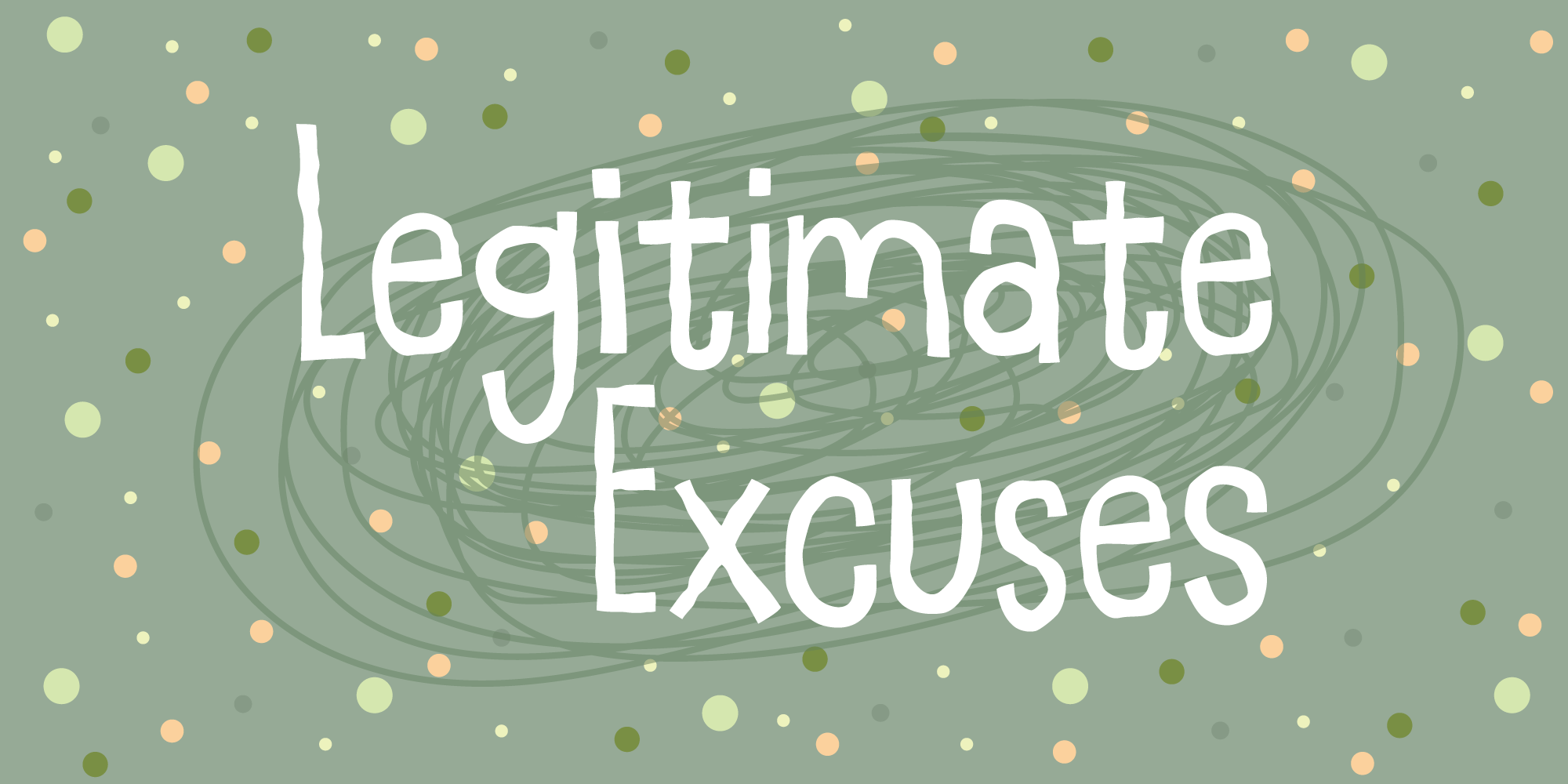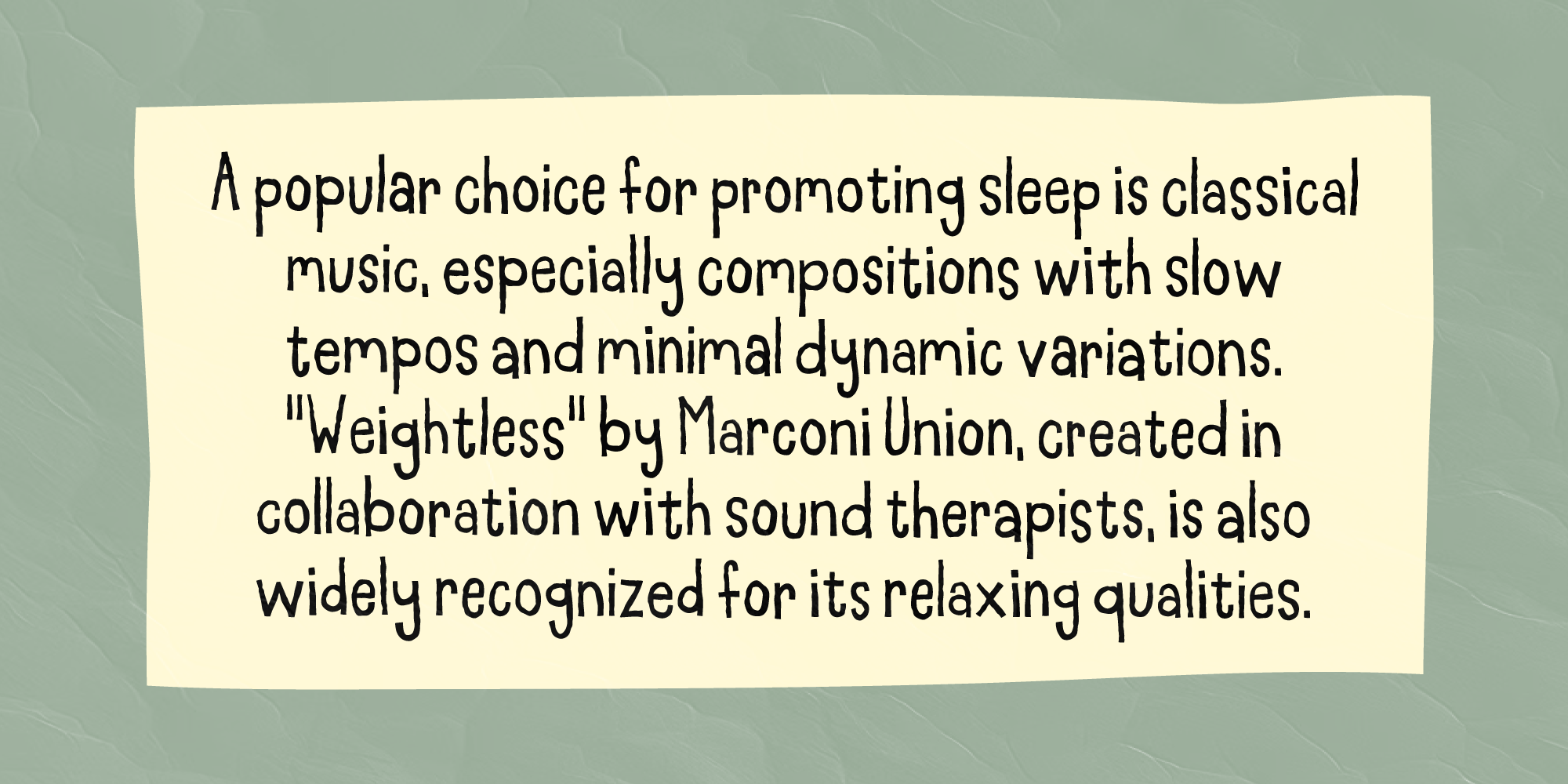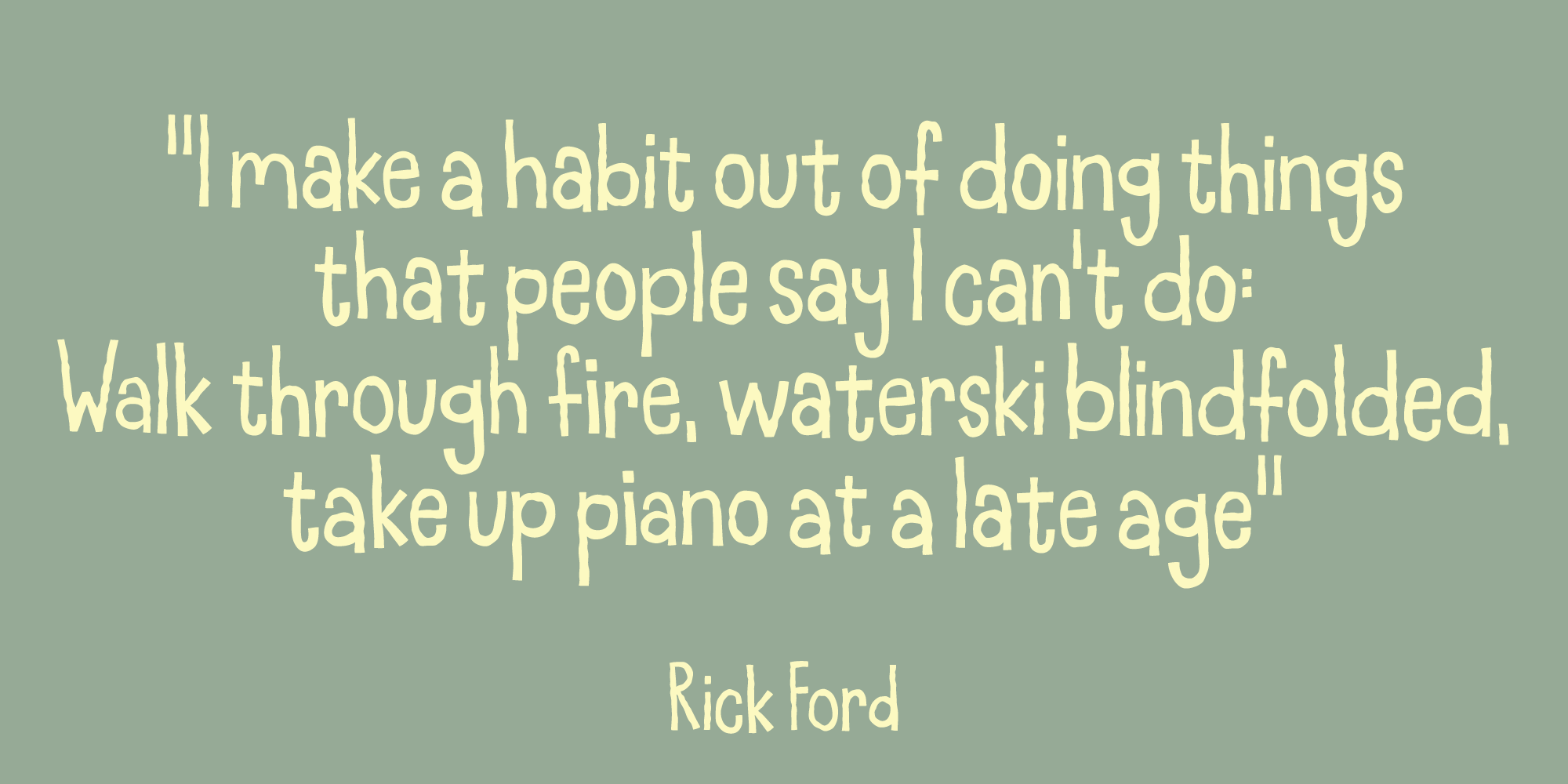
Legitimate Excuses
Shaky, yet legible! Legitimate Excuses is my organic and handmade sans - suitable for anything that needs a clear, legible and obvious handmade look. Comes with 4 different versions of each lower-case letter!